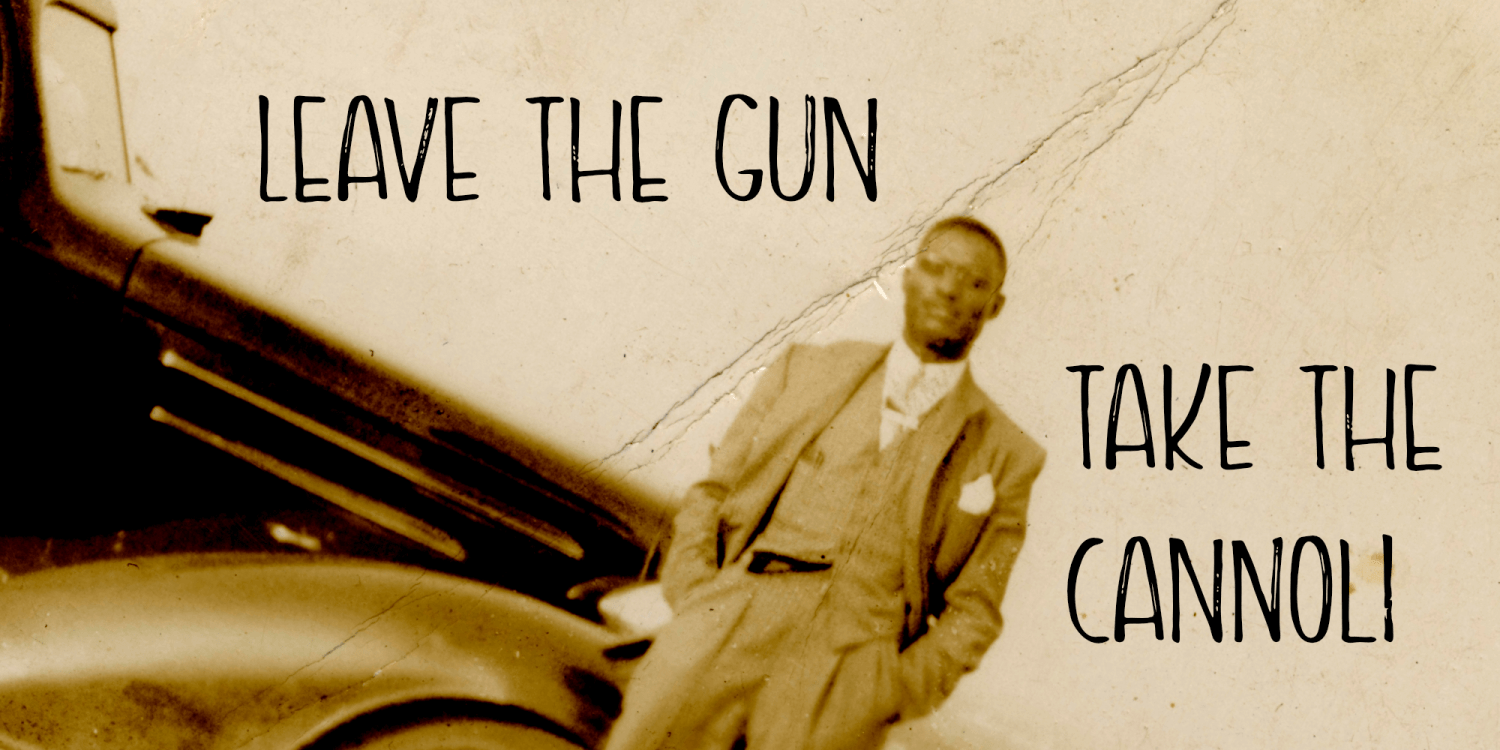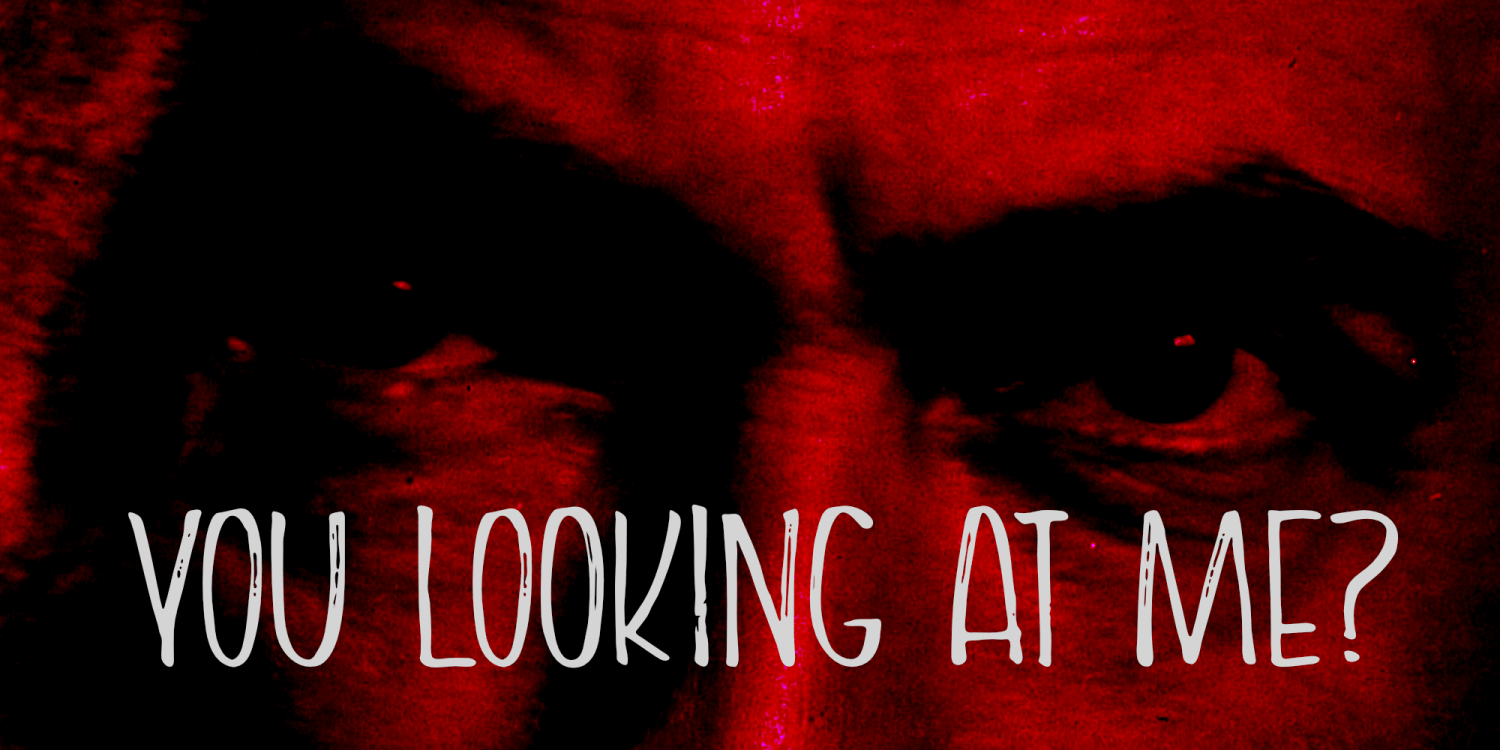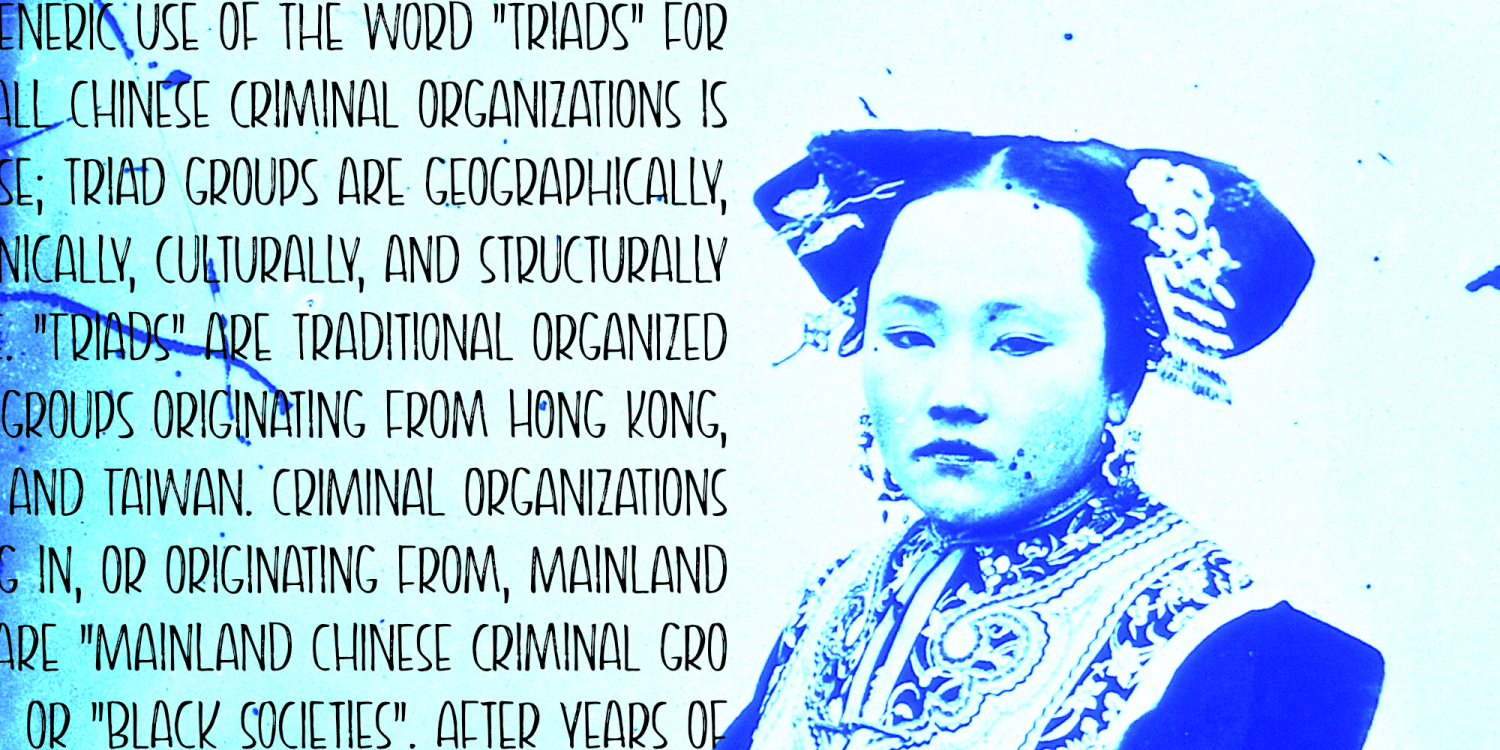
About Packing Heat
I came across a photo of Al Capone and some of his henchmen when searching the internet for something completely unrelated. We don’t have a history of notorious gangsters in Holland, so I was intrigued by Capone all of my life. Packing Heat…